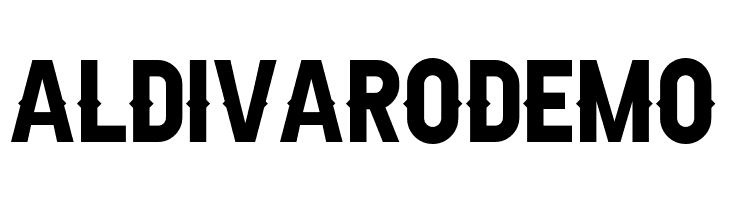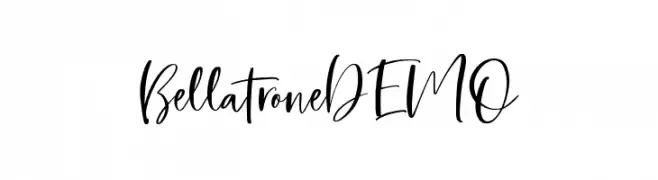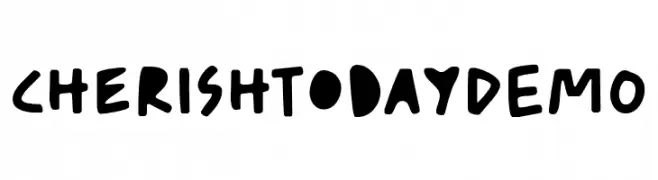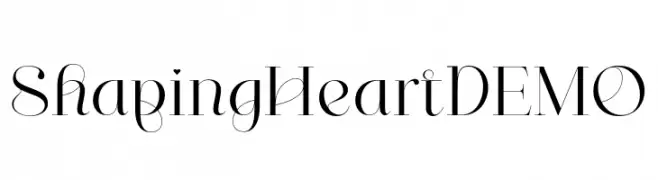
An elegant, flowing script font with intricate loops and flourishes.
A bold, artistic font with sharp angles and unique embellishments.
A bold, expressive script font with calligraphic influences and dramatic flourishes.
A bold, high-contrast serif font with elegant serifs and a classic yet modern style.
A lively and elegant handwritten script font with fluid connections.
A dynamic, brush-style font with expressive, fluid strokes.
A lively, cursive font with fluid, connected characters and a dynamic style.
A high-contrast serif font with elegant, sharp serifs and a modern classic style.
A bold, elegant serif font with high contrast and pronounced curves.
A bold, high-contrast font with a modern and elegant style.